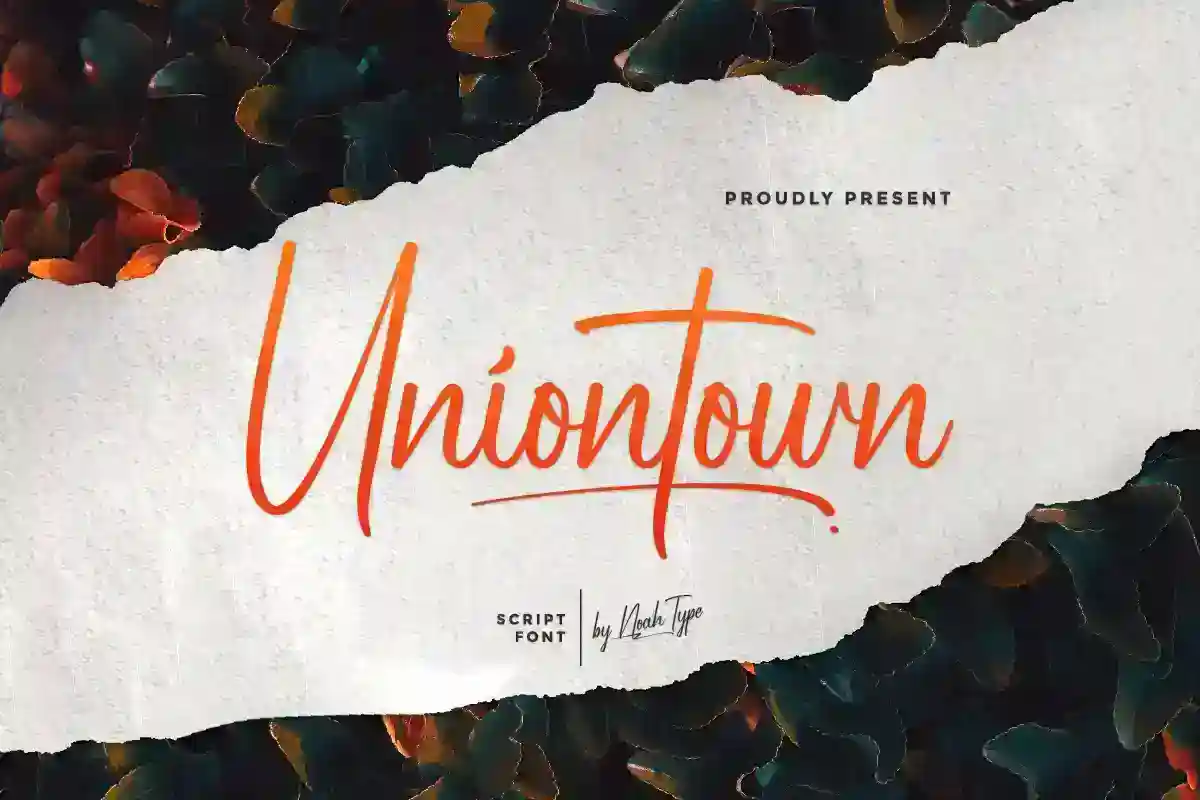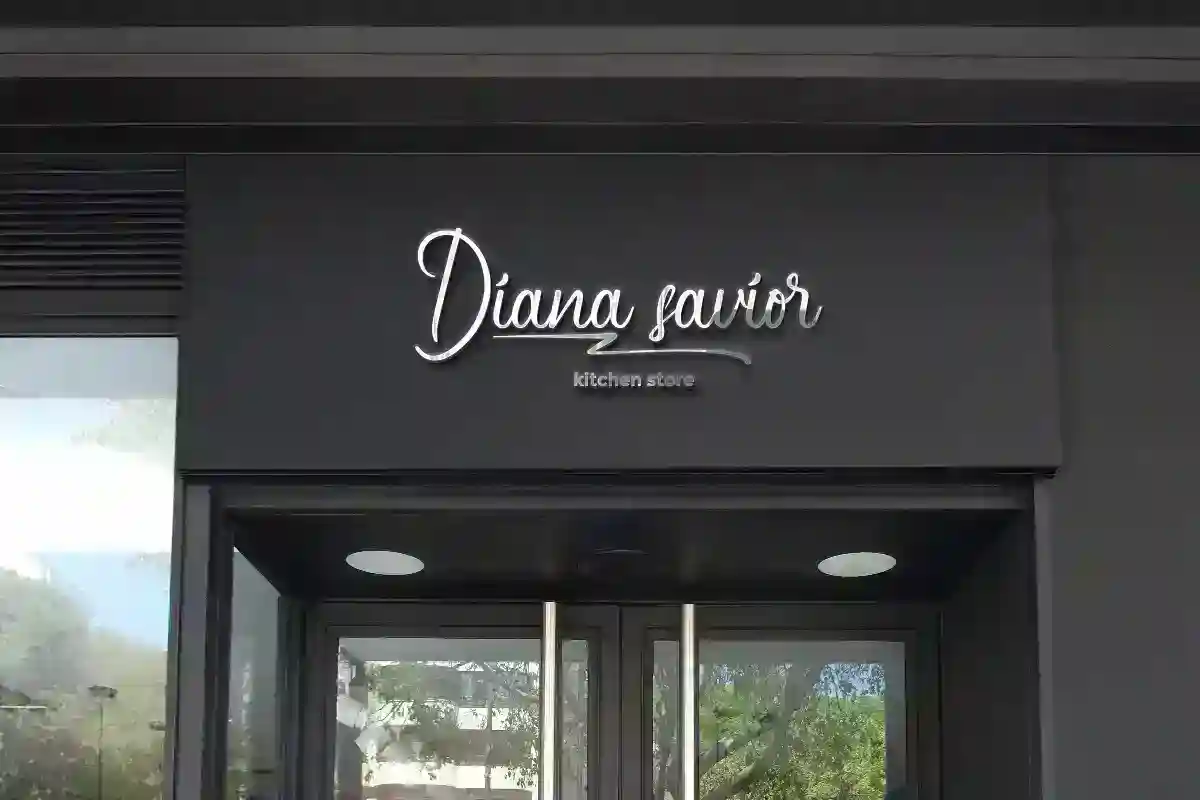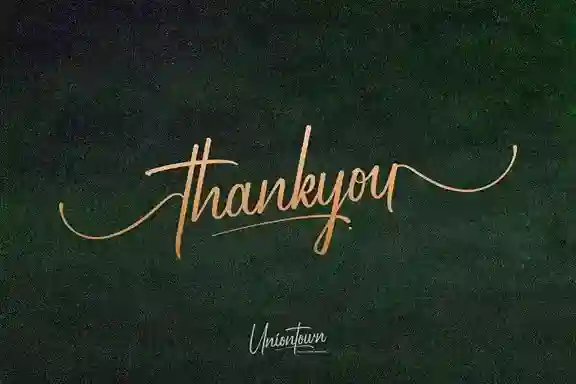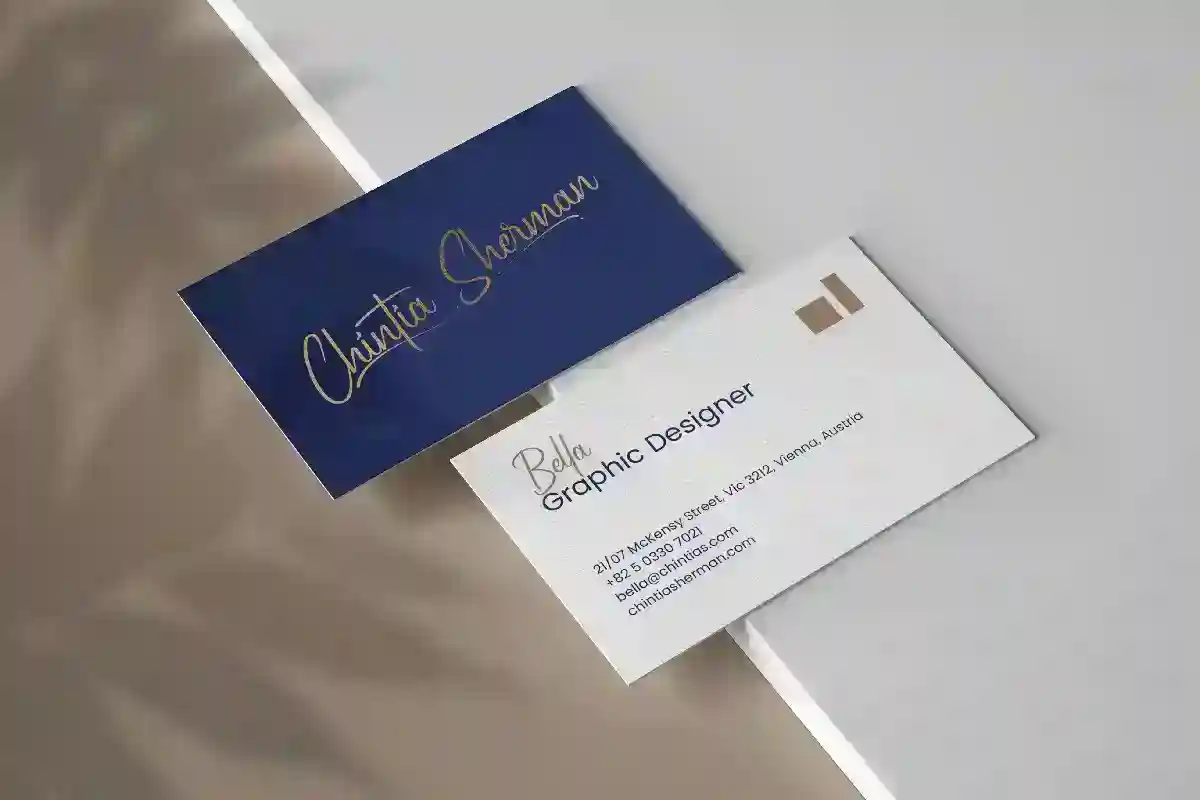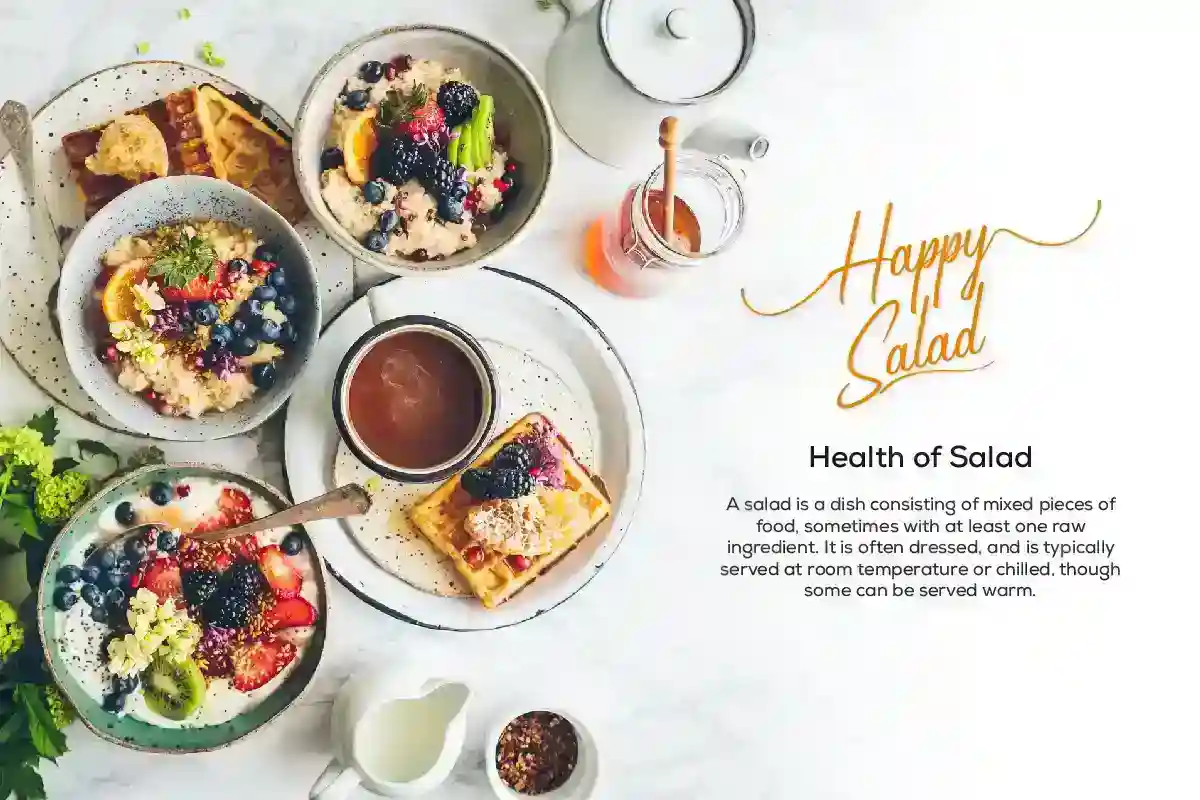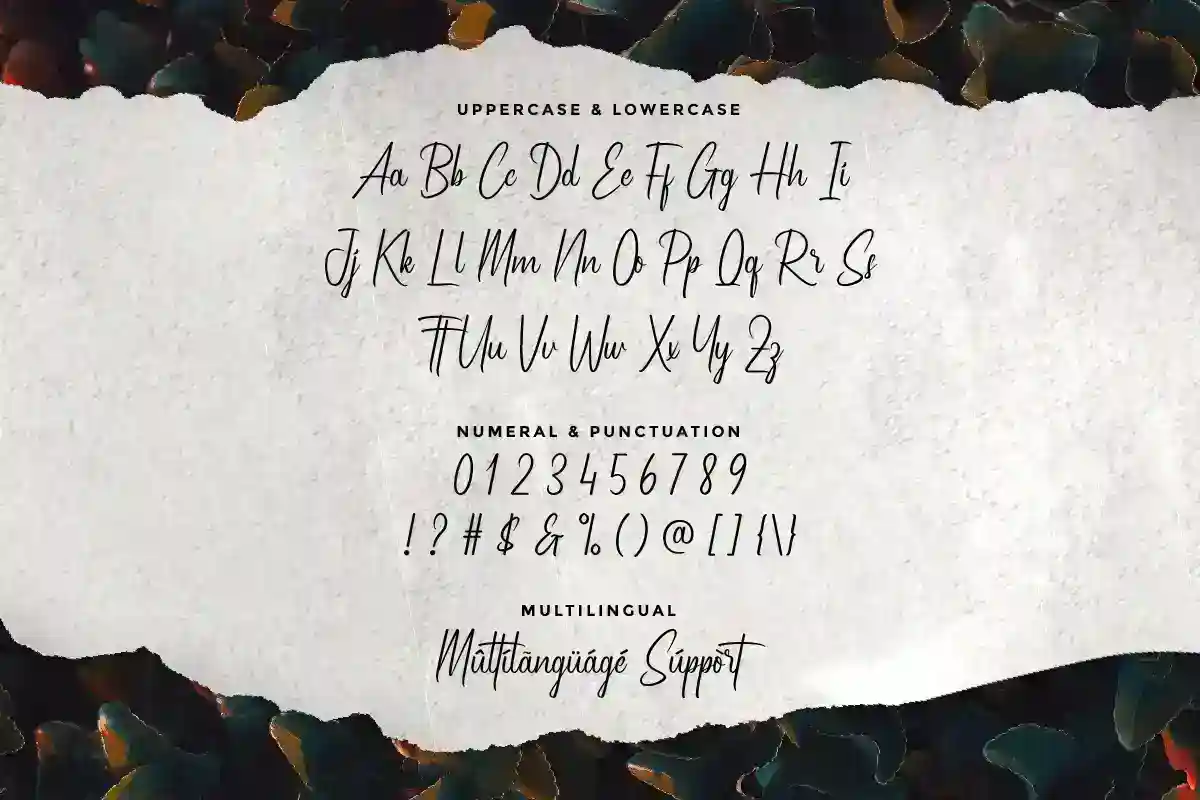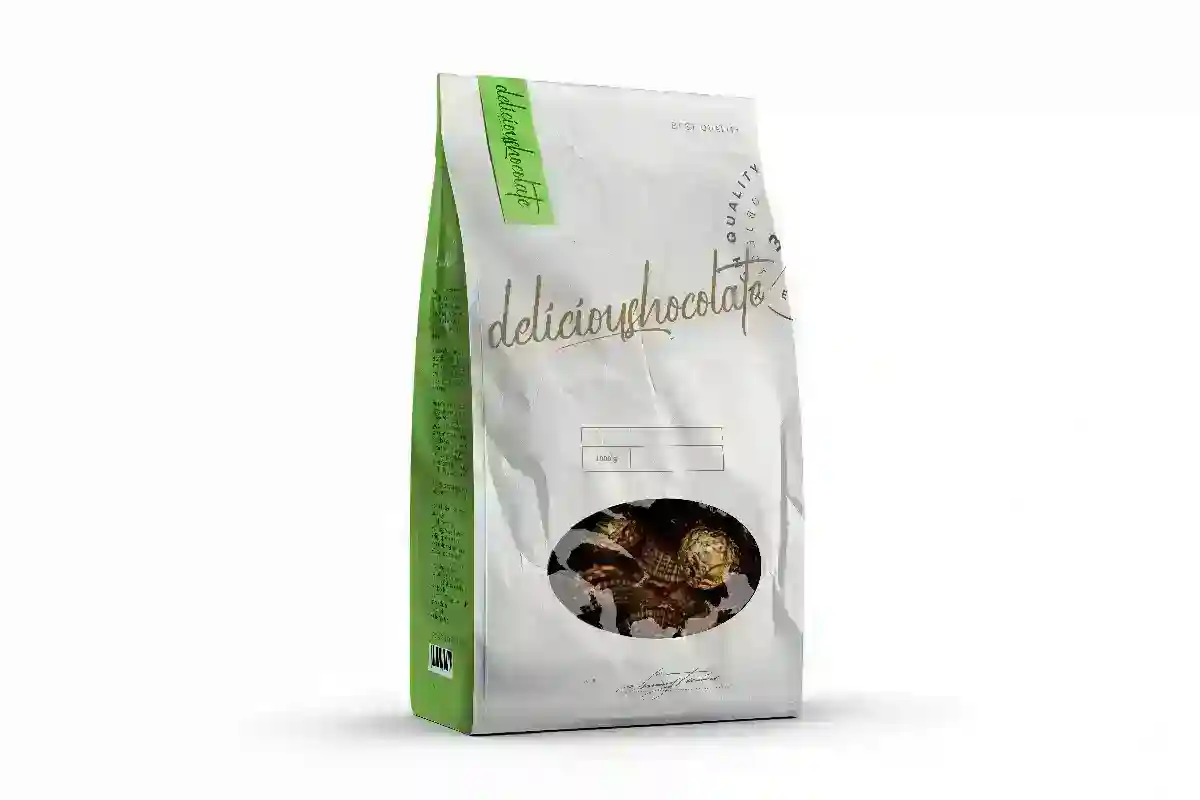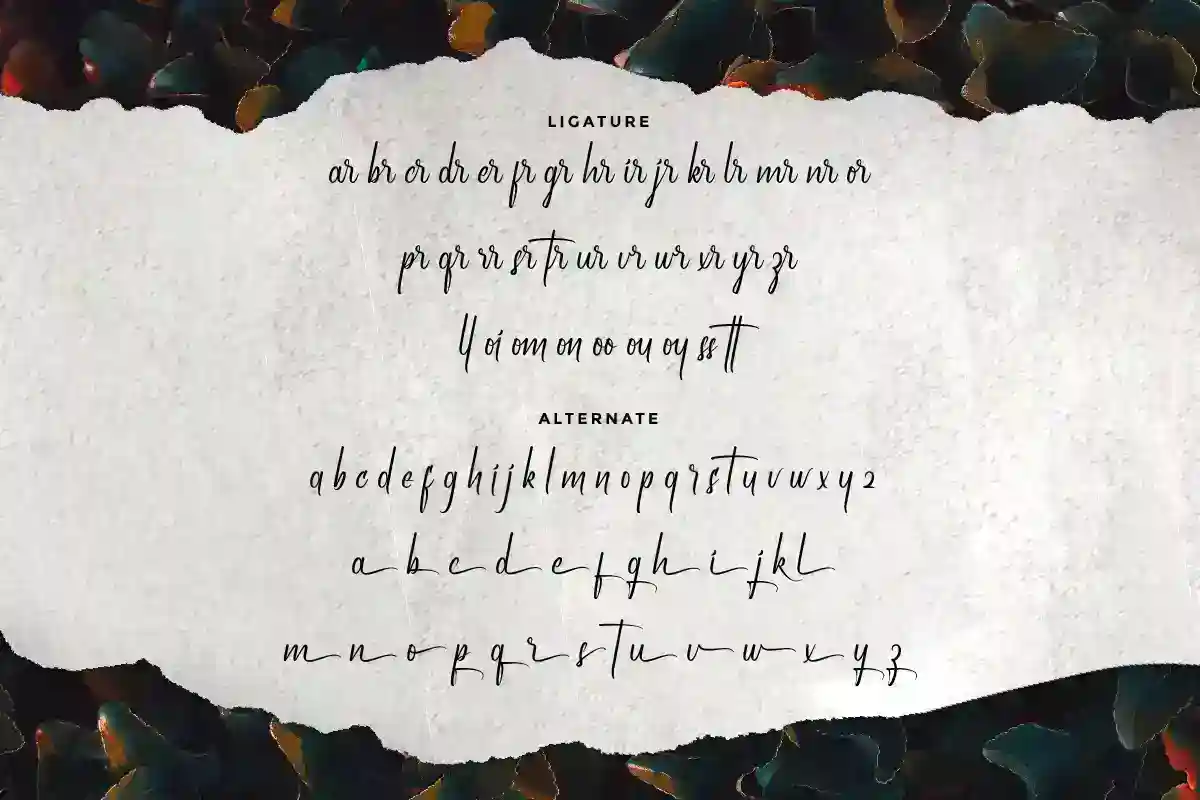
Uniontown Font is a beautiful calligraphy font with modern characters inspired by delicate inky hand lettering, gorgeous wedding calligraphy and trending minimal branding designs. This font is crafted carefully in every its single scratch, created to look as close to a natural handwritten script so that it can create the perfect combination on each glyph. When we make this font, we really want to create a touch that is so free-flowing that it gives a natural impression on its use later.
For example, if you want letter ‘s’ that has a flow sketch with letter ‘t’, you can find it in ‘st’ ligature glyph (just type in the text form below for trying). This awesome script is for anyone who are needing of elegance and stylish for their designs.
Uniontown Font includes full set of Uppercase and Lowercase Basic Characters, Numerals and Punctuation. Also it contains ligatures and alternates characters to perfectly make natural calligraphy look that add more beautiful and aesthetic fonts to perfect your extraordinary project. Uniontown will be awesome for wedding, engagement, branding, invitations, florist, hair stylish, makeup artist, event organizer, movie, music, festival, promotions, social media et